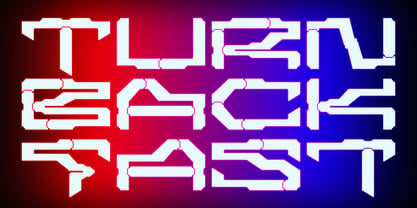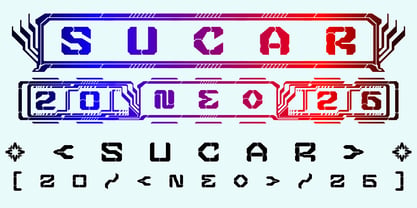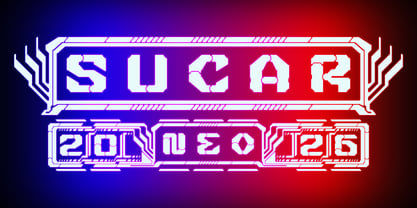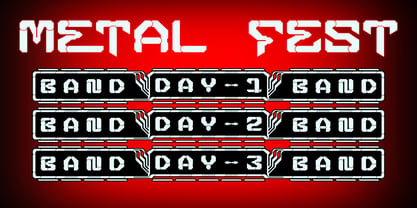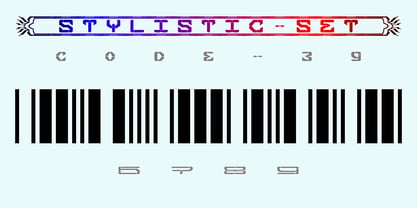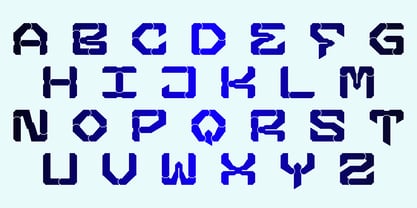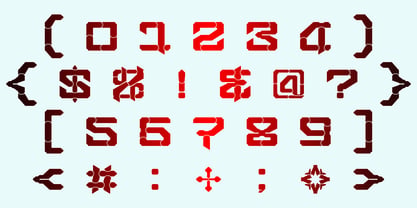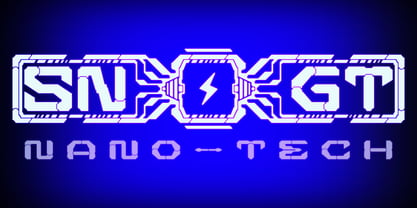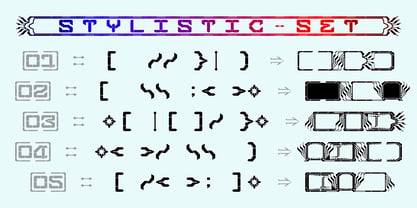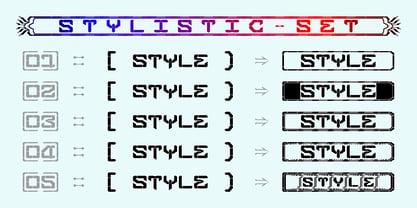
Sucar Neo VR
Die Schriftfamilie Sucar Neo VR wurde von Tri Kuncoro entworfen und von Greentrik6789 veröffentlicht. Sucar Neo VR enthält 1 Stile. Mehr über diese Familie
Transform your design projects with the Sucar Neo font, the cutting-edge evolution of the Super Car font. This versatile variable typeface beautifully marries futuristic aesthetics with bold display capabilities, making it ideal for everything from eye-catching posters to sleek UI/UX designs, logos, and dynamic web/app interfaces. Packed with a comprehensive range of styles and features, Sucar Neo empowers your creativity, ensuring your work stands out in every creative endeavor. Elevate your projects today and experience the remarkable impact this innovative font can bring!
I'm Tri Kuncoro, a type designer from a small town in Central Java, Indonesia. As the founder and creative mind behind Greentrik6789, I specialize in crafting bold, expressive display fonts tailored for contemporary applications — from logos and posters to impactful branding. My recent releases, such as Super Car (July 19, 2022) and Super Car Variable (November 19, 2024), showcase my commitment to strong aesthetics and versatile functionality, incorporating cutting-edge variable font technology. Other standout creations like Standhill, Moggen, Rise, and Ragiel exemplify my unwavering dedication to form, rhythm, and visual impact, making Greentrik6789 a unique player in the type design industry.